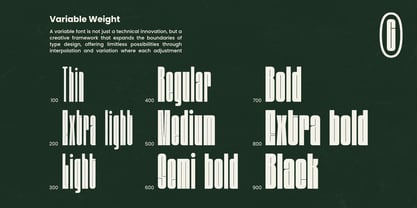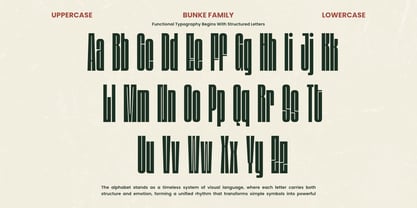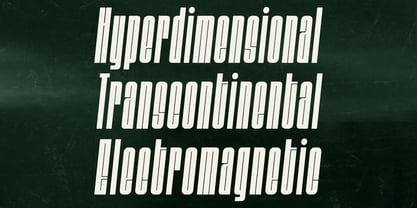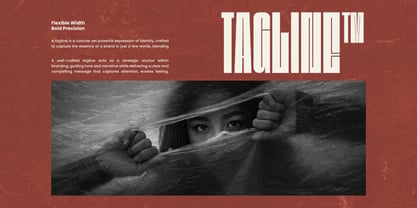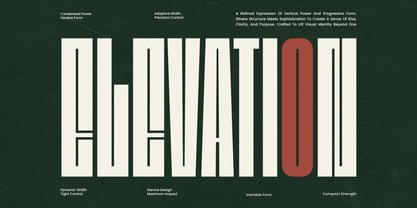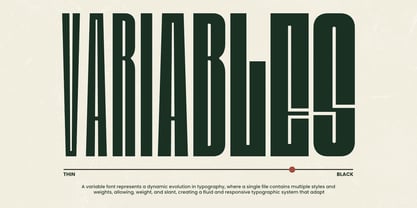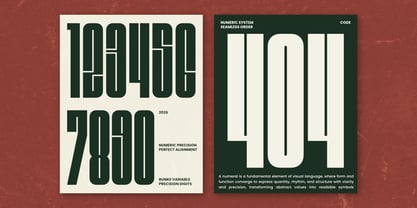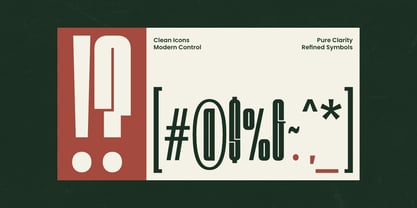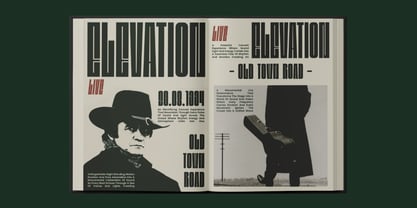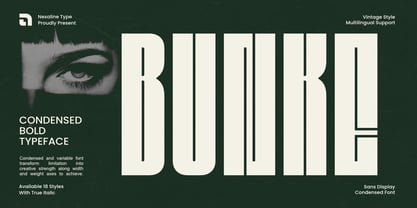
Bunke
by Nexaline Type
The Bunke Font Family was designed by Zaidan Akbar and published by Nexaline Type. Bunke contains 18 styles and family package options. More about this family
Bunke is a powerful and commanding condensed bold sans-serif typeface with a distinct vintage flair. It transforms spatial limitations into creative strength. Its tall, imposing structure and bold weight make it perfect for striking displays, while its vintage aesthetic adds a touch of raw, nostalgic character to modern designs. Perfect for: - Impactful Posters & Flyers - Vintage Branding & Logo Design - Editorial Headlines & Magazine Covers - Bold Packaging Design - Apparel & Streetwear Typography What’s Inside: - Bunke Family (Available in 18 Styles) - True Italic Include - Full Character Set (A-Z, 0-9, Punctuation) - Comprehensive Multilingual Support
Designers: Zaidan Akbar
Foundry: Nexaline Type